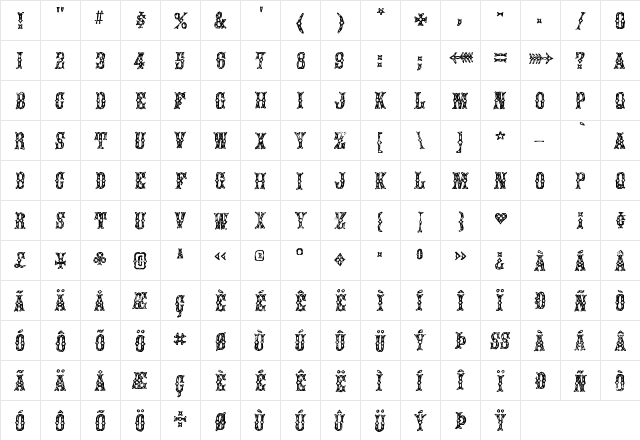
Augustine Regular
Foundry: Typodermic
Design Context for Augustine
Augustine is a composed and adaptable typeface that performs quietly and consistently across a wide range of design contexts.